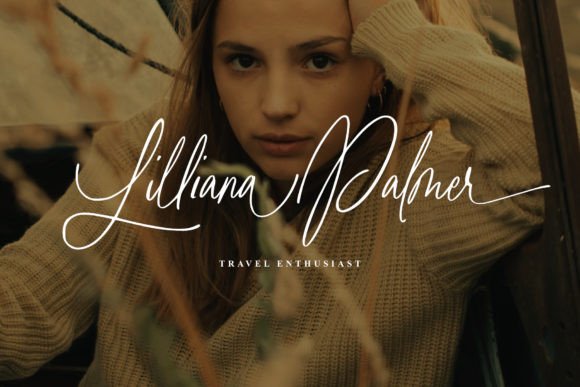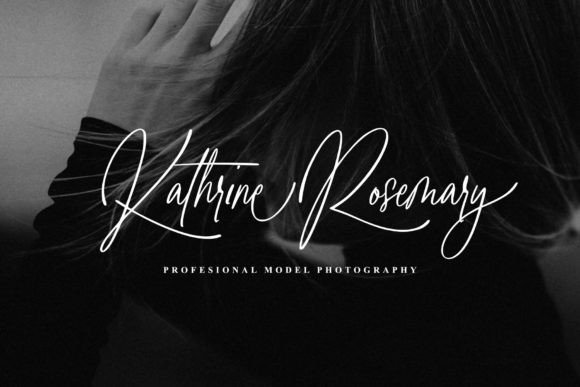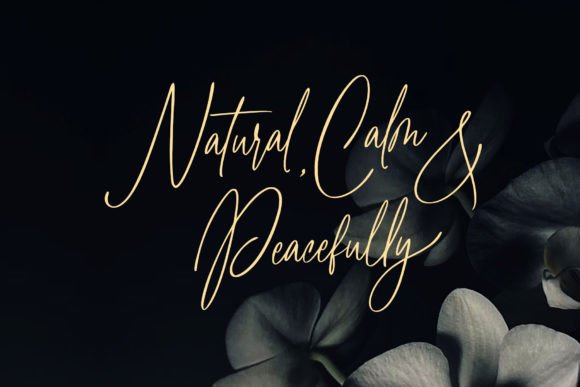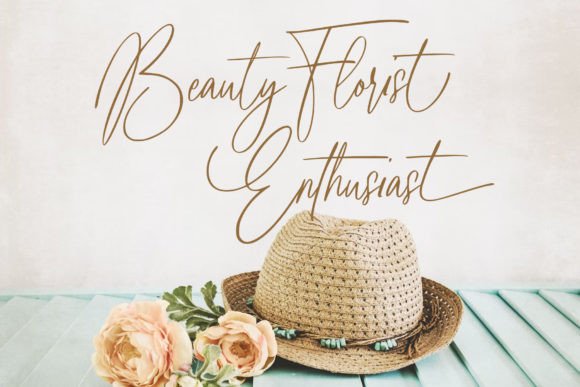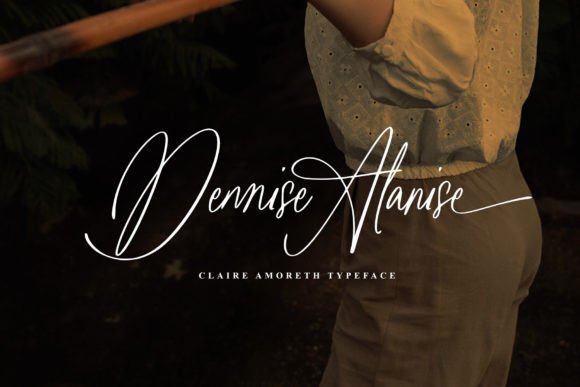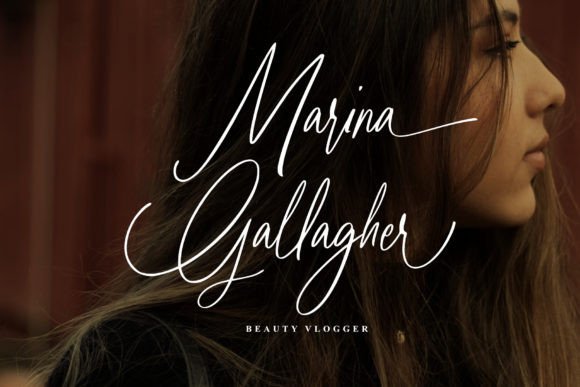
Introducing Claire Amoreth Font: Elevate Your Designs with Elegant Handwritten Charm
In the realm of typography, few fonts capture the essence of natural, free-flowing script as beautifully as Claire Amoreth. This captivating handwritten script font is designed to infuse your designs with an authentic and personal flair, making it an ideal choice for projects that demand a mix of sophistication and casual charm. Whether you’re a designer, crafter, or simply someone who appreciates the art of beautiful writing, Claire Amoreth is sure to leave a lasting impression.
The Art of Calligraphy: The Birthplace of Claire Amoreth
Claire Amoreth is born out of the art of calligraphy, a traditional craft that requires skill, patience, and a deep understanding of the nuances of lettering. This font embodies the perfect synergy of understated elegance and refinement, making it a versatile choice for a wide range of applications. From wedding invitations and sentimental notes to brand logos and design projects, Claire Amoreth’s adaptability knows no bounds.
Elegant Curves and Organic Lines: The Hallmark of Claire Amoreth
One of the defining features of Claire Amoreth is its elegant curves and organic lines. These delicate characteristics infuse an authentic and personal touch into your designs, setting it apart from more traditional fonts. The fluid and delicate character of Claire Amoreth translates into an expressive and cohesive script, turning every written word into a miniature masterpiece.
Ideal for Designers and Crafters: Unlocking Creative Possibilities
Claire Amoreth is a dream come true for designers and crafters who strive to create unique and captivating visual content. Its handwritten aesthetic makes it perfect for:
- Wedding invitations and ceremony programs
- Sentimental notes and greeting cards
- Brand logos and packaging design
- Stationery and journaling
Experience the Allure of Handcrafted Genuineness
In an era dominated by digital technology, Claire Amoreth offers a refreshing respite from the uniformity of machine-generated fonts. Its handcrafted genuineness adds a touch of warmth and personality to your designs, making them more relatable and engaging. By incorporating Claire Amoreth into your projects, you’ll be able to convey a sense of authenticity and craftsmanship that resonates with your audience.
Enrich Your Designs with the Enduring Elegance of Claire Amoreth
Claire Amoreth is more than just a font – it’s a design statement. Its enduring elegance and timeless charm make it an excellent choice for projects that require a touch of sophistication and refinement. Whether you’re looking to create a cohesive brand identity or simply want to add a personal touch to your designs, Claire Amoreth is the perfect choice.
Key Features of Claire Amoreth Font
- Handwritten script font with elegant curves and organic lines
- Perfect for projects that demand a mix of sophistication and casual charm
- Ideal for wedding invitations, sentimental notes, brand logos, and design projects
- Adaptable and versatile, suitable for a wide range of applications
- Handcrafted genuineness adds a touch of warmth and personality to your designs
In conclusion, Claire Amoreth is a captivating handwritten script font that offers a unique blend of elegance, sophistication, and casual charm. Its enduring appeal and versatility make it an excellent choice for designers, crafters, and anyone looking to add a personal touch to their designs. Experience the allure of handcrafted genuineness and elevate your designs with the timeless elegance of Claire Amoreth.